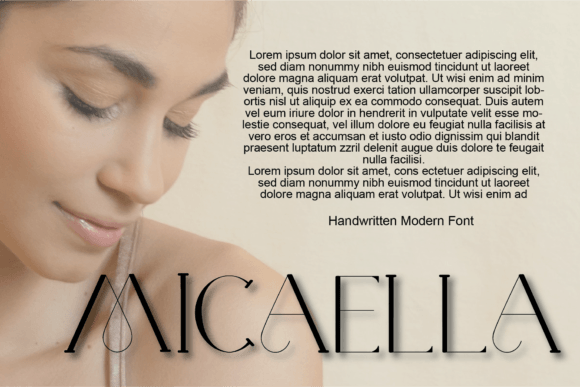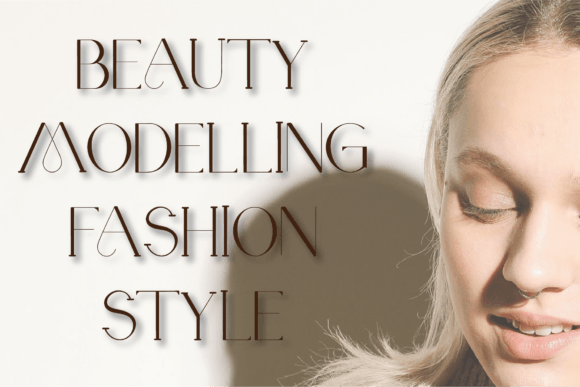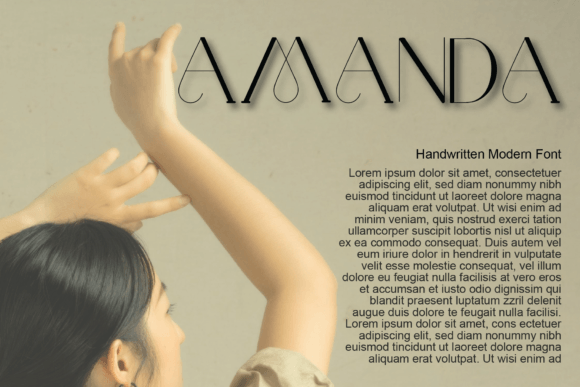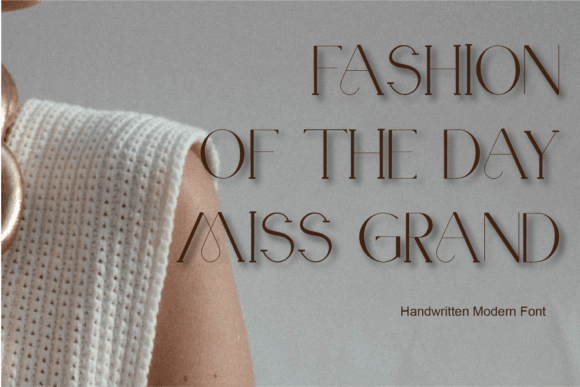
Introducing Gemola Font: Elevate Your Designs with a Touch of Sophistication
Are you on the hunt for a font that exudes style, sophistication, and a hint of futurism? Look no further than Gemola Font, a stunning serif font that is sure to take your creative projects to the next level. With its unique blend of modern and classic elements, Gemola is the perfect addition to any designer’s toolkit.
The Perfect Blend of Modern and Futuristic
Gemola Font boasts a sleek and contemporary design that is both modern and futuristic. Its serif lines and curves are carefully crafted to create a sense of fluidity and movement, making it perfect for designs that require a touch of dynamism. Whether you’re working on a branding project, a website, or a marketing campaign, Gemola is sure to make your design stand out from the crowd.
What Makes Gemola Font So Special?
So, what sets Gemola apart from other fonts on the market? Here are just a few reasons why this font is a cut above the rest:
- Unique Serif Design: Gemola’s serif design is both elegant and sophisticated, making it perfect for designs that require a touch of luxury and refinement.
- Modern and Futuristic: With its sleek lines and curves, Gemola has a distinctly modern and futuristic feel that is sure to appeal to designers who want to create cutting-edge designs.
- Highly Versatile: Whether you’re working on a print project, a digital design, or a web project, Gemola is highly versatile and can be used in a wide range of applications.
- Easily Readable: Despite its sleek and modern design, Gemola is still highly readable, making it perfect for body text and other applications where legibility is key.
How to Use Gemola Font in Your Designs
Gemola Font is incredibly easy to use and can be incorporated into your designs in a variety of ways. Here are just a few ideas to get you started:
- Branding and Logo Design: Use Gemola as a headline font to create a bold and eye-catching logo that is sure to make your brand stand out.
- Web Design: Gemola is perfect for web design, and can be used as a headline font or for body text to create a clean and modern look.
- Print Design: Whether you’re working on a brochure, a flyer, or a business card, Gemola is a great choice for print designs that require a touch of sophistication.
- Marketing and Advertising: Use Gemola to create eye-catching marketing materials, such as billboards, posters, and social media ads.
Tips for Getting the Most Out of Gemola Font
To get the most out of Gemola Font, here are a few tips to keep in mind:
- Experiment with Different Sizes: Gemola looks great in a variety of sizes, so don’t be afraid to experiment with different font sizes to find the one that works best for your design.
- Pair it with Other Fonts: Gemola pairs well with a variety of other fonts, so try pairing it with a sans-serif font for a bold and eye-catching look.
- Use it for Headlines and Titles: Gemola is perfect for headlines and titles, so use it to create bold and eye-catching headings that draw the reader’s attention.
In conclusion, Gemola Font is a stylish and sophisticated serif font that is sure to elevate your designs to the next level. With its unique blend of modern and classic elements, Gemola is the perfect addition to any designer’s toolkit. Whether you’re working on a branding project, a website, or a marketing campaign, Gemola is sure to make your design stand out from the crowd. So why wait? Add Gemola to your creative ideas today and see how it can help you create stunning designs that leave a lasting impression.